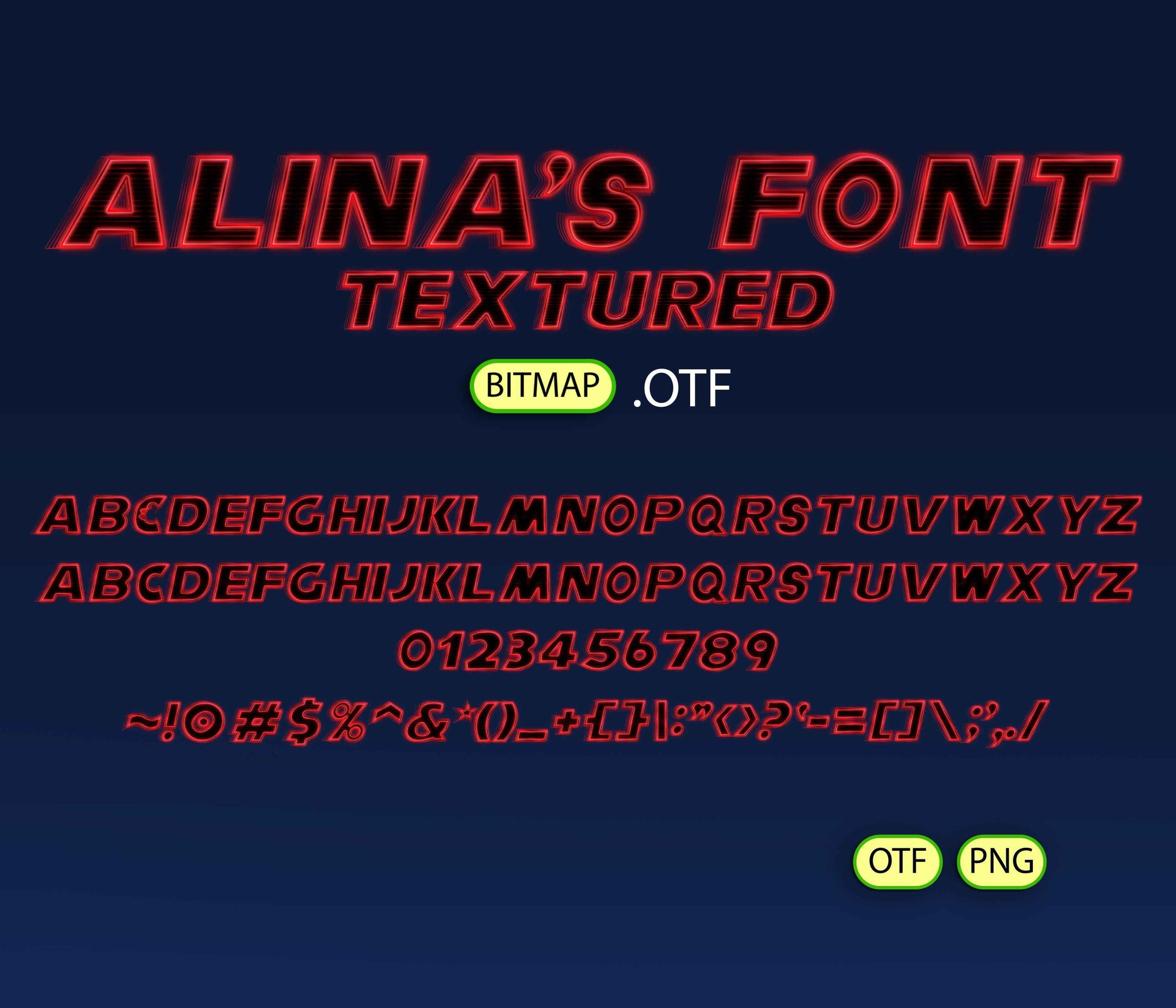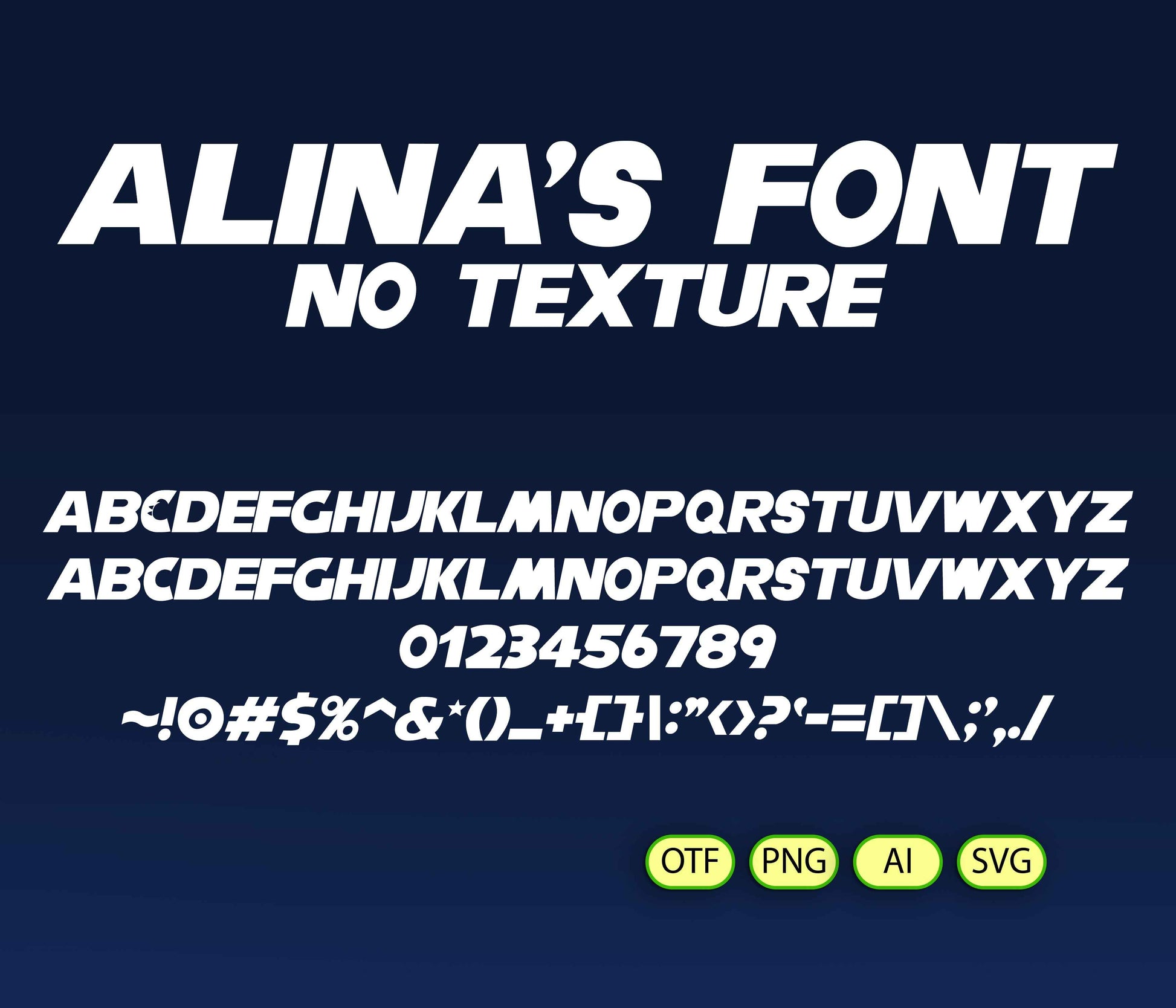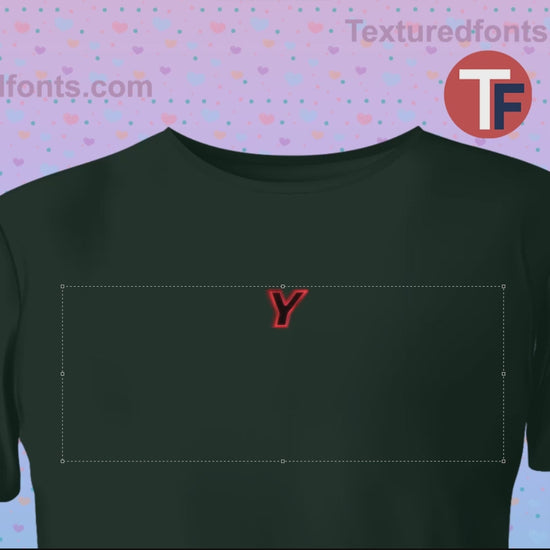
Guardian Hero Font Textured
Unleash the Power of Guardian Hero with Our Specialized Font
Introduce the bold and dynamic essence of a beloved guardian hero into your design projects with our Guardian Hero font. Perfect for fans of the tough and determined echidna-like character from an iconic game series, this font is designed to convey strength and adventurous spirit. Whether you're crafting gaming content, creating personalized fan merchandise, or enhancing your digital designs, this font ensures your creations stand out with vigor and personality.
The Guardian Hero font features sharp, angular lines that echo the rugged character of a strong and adventurous hero, ideal for making a strong impact in visual designs. It offers a full set of characters including uppercase and lowercase letters, numbers, and symbols, which supports a wide range of uses:
1. Gaming Events and Promotions: Perfect for flyers, banners, and digital ads.
2. Fan Merchandise: Create distinctive t-shirts, hats, and collectibles.
3. Digital Media: Enhance your online presence with striking headers and titles.
4. Personal Projects: Add a unique touch to custom gifts and home decor.
Our Guardian Hero-inspired font not only pays homage to a classic video game hero but also empowers your designs with its bold and adventurous flair. By using this font, you can bring the essence of the character into every element of your creative work, ensuring your projects resonate with fans and capture the spirit of a beloved gaming universe. Ready to punch up your designs with some heroic attitude? This font is here to make that happen.